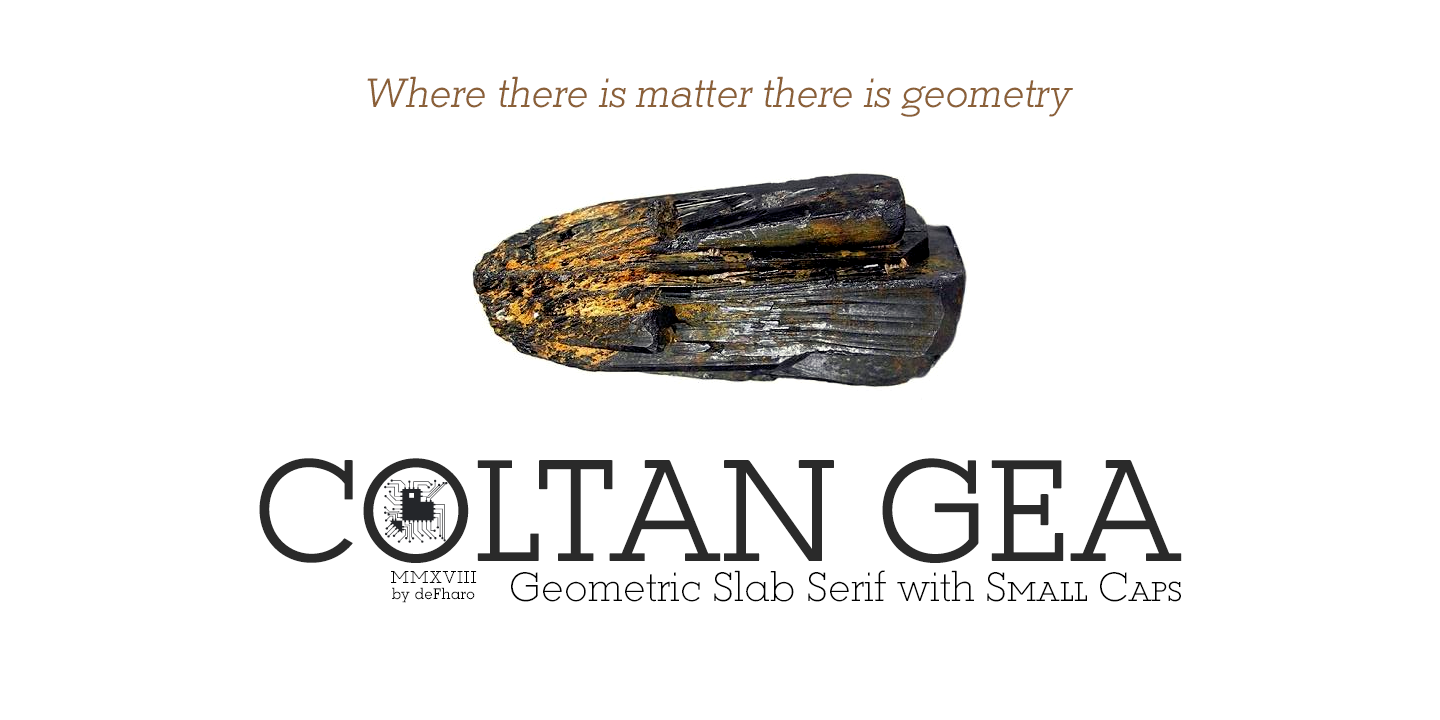
This geological typeface is perfect for mining industry branding, mineral extraction companies, earth sciences publications, geological survey communications, raw materials packaging, industrial mining equipment, natural resource marketing, and environmental geology projects that require earthy strength and geological sophistication with mineral authenticity and earth-sourced elegance.
Coltan Gea Font is exciting because it powerfully captures the essence of geological formation and mineral strength through its structurally robust letterforms that evoke the deep earth processes and the industrial significance of rare earth minerals. The font's distinctive character design and geological aesthetic reflect the world of mineral extraction and earth sciences, making it perfect for mining companies that want to convey geological expertise, industrial strength, and the kind of earth-sourced authenticity that appeals to industries requiring reliable mineral resources and geological stability.
The Coltan Gea Font family includes mineral-inspired variations and geological styling options, featuring light, regular, medium, and bold weights, along with earth-toned design elements and mining industry alternates that provide geological companies and designers with comprehensive typographic tools for creating authentic mining branding and professional earth sciences communications.
Excavate design excellence with Coltan Gea Font Free Download, a typeface that brings geological sophistication to contemporary mining and earth sciences branding projects. This exceptional font combines mineral strength with industrial functionality, making it an indispensable resource for mining companies, geological firms, and designers working on natural resources or earth sciences marketing campaigns. The geologically crafted letterforms ensure maximum impact while conveying the earthy strength and geological sophistication that defines this distinctly mineral-focused and authentically earth sciences-inspired typeface.